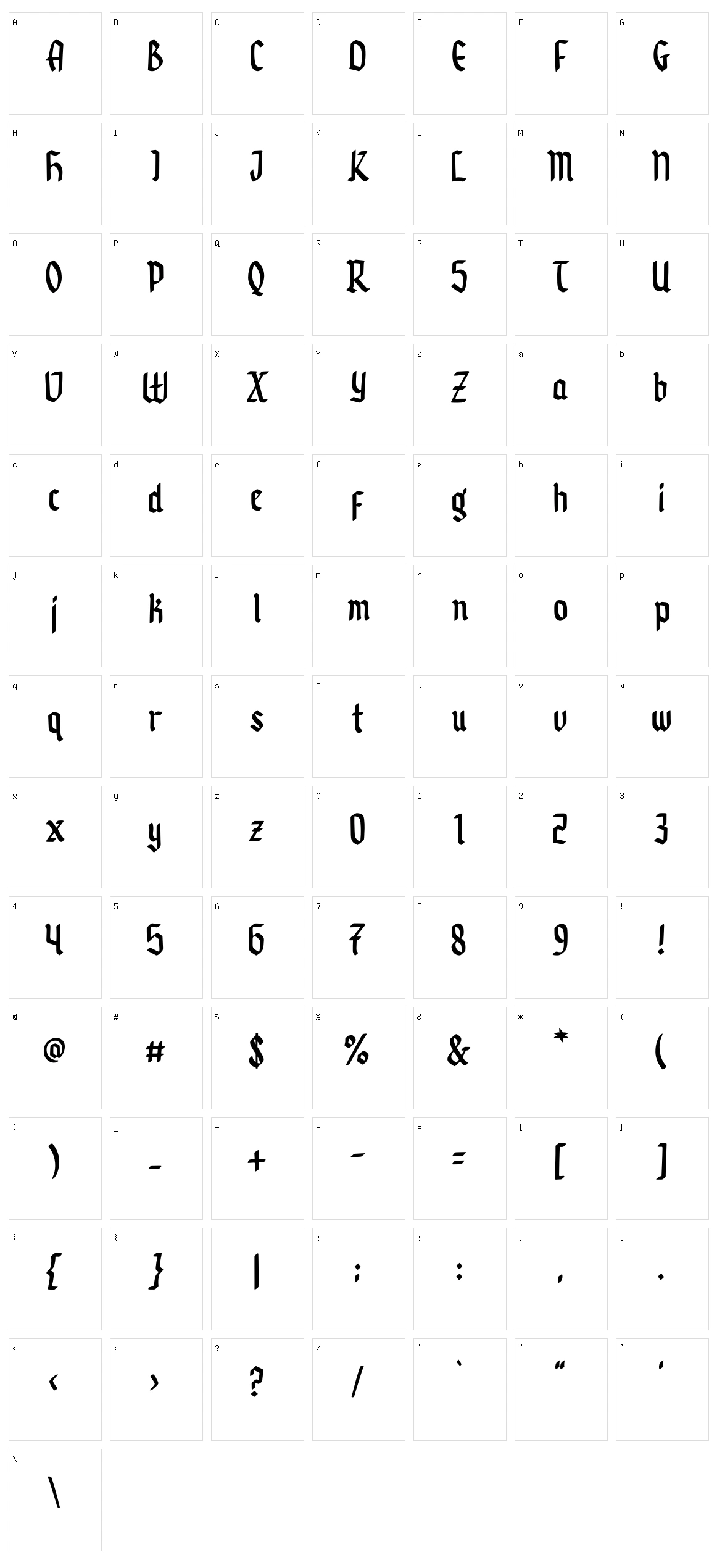
The free font Funky Gloom is carefully designed by Invasi Typework, showcasing a thoughtful balance of creativity and usability and belongs to the Gothic font family. When you download the ZIP file, it contains only 25.49 KB of font files, making it lightweight and quick to download. Please review the license details below to understand permitted usage and distribution rights. If license information is not available, we recommend using this font for personal projects only or contacting the author directly for commercial usage permissions.